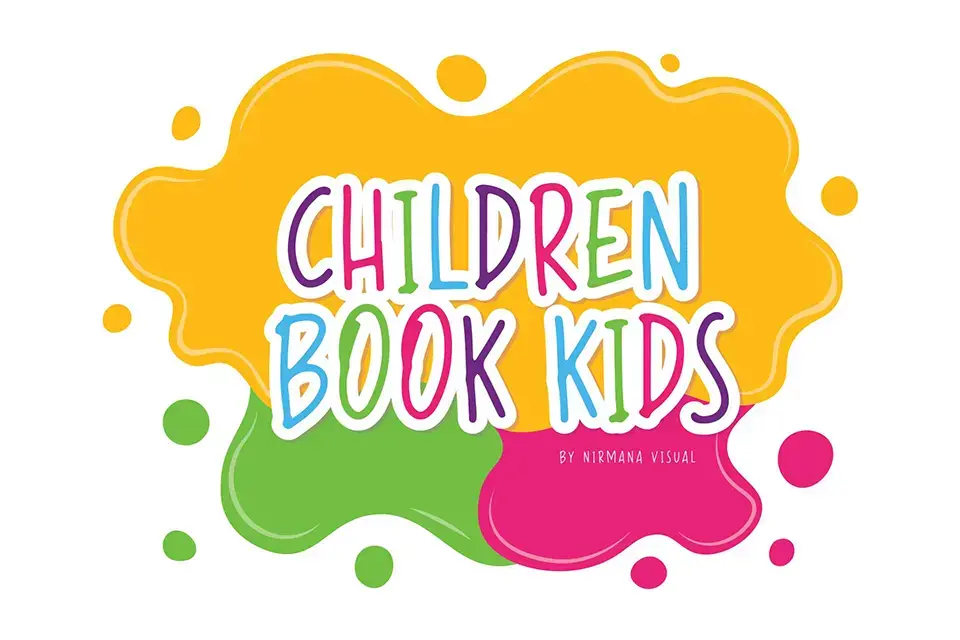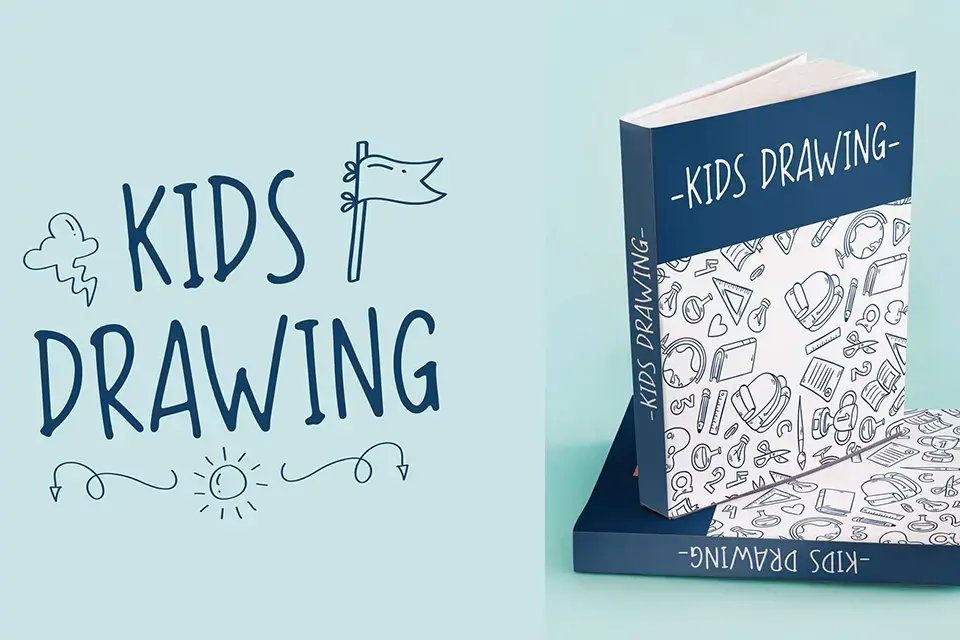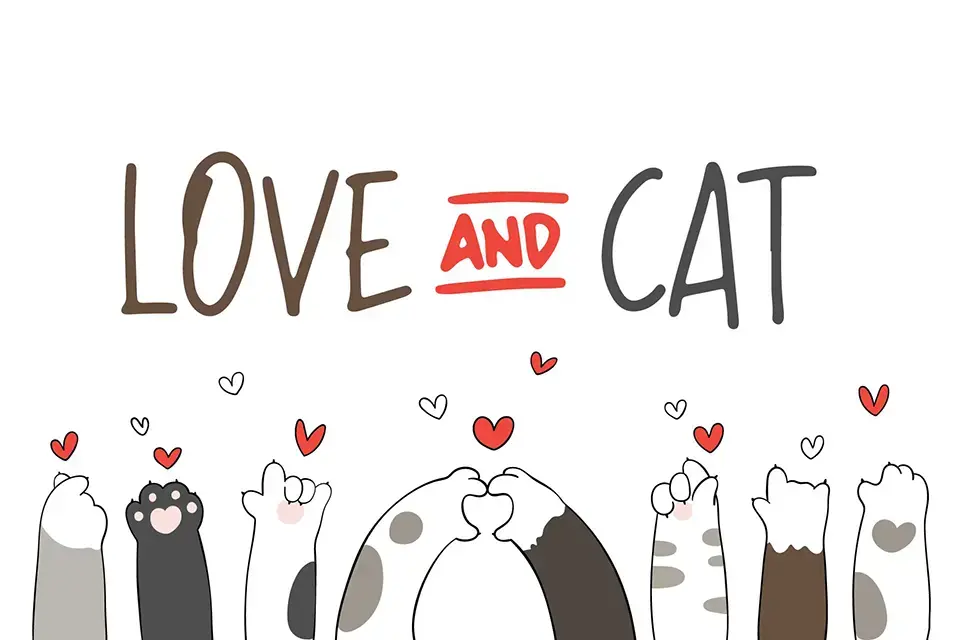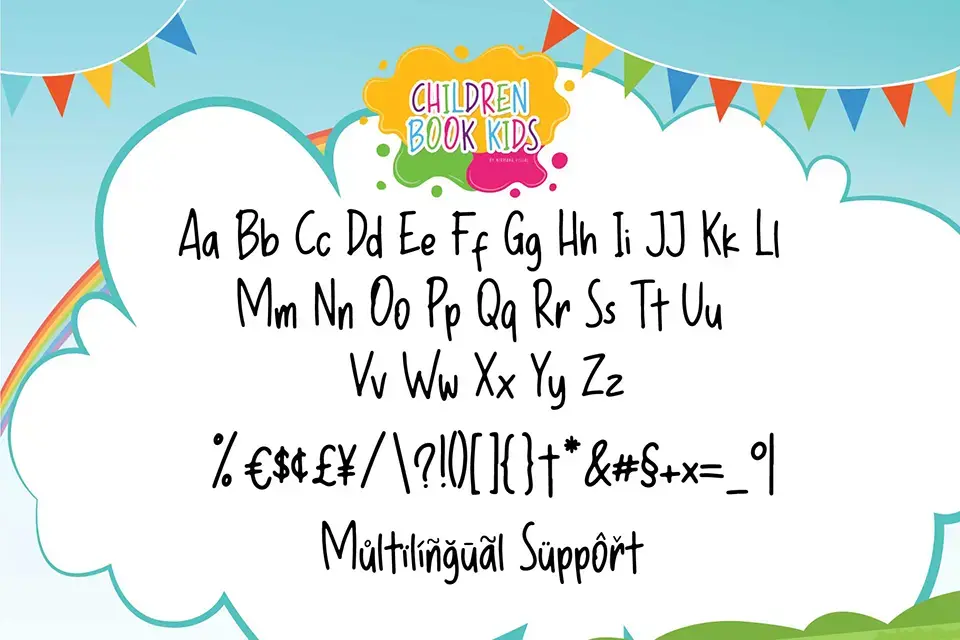
Children Book Kids Font
Children Book Kids is a charming handwritten display font featuring natural, organic letterforms with an artistic and playful aesthetic. The font’s flowing strokes and casual style make it ideal for children’s book covers, creative packaging, greeting cards, posters, craft projects, and branding materials targeting younger audiences. Its friendly, approachable letterforms work exceptionally well for titles, headlines, and decorative applications where a warm, inviting personality enhances the design. The font’s irregular but readable character shapes evoke authentic hand-lettering while maintaining clarity for both digital and print applications across educational, entertainment, and lifestyle projects.